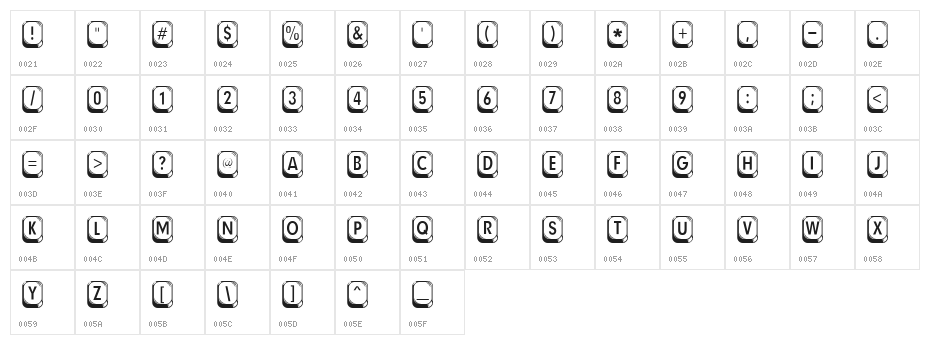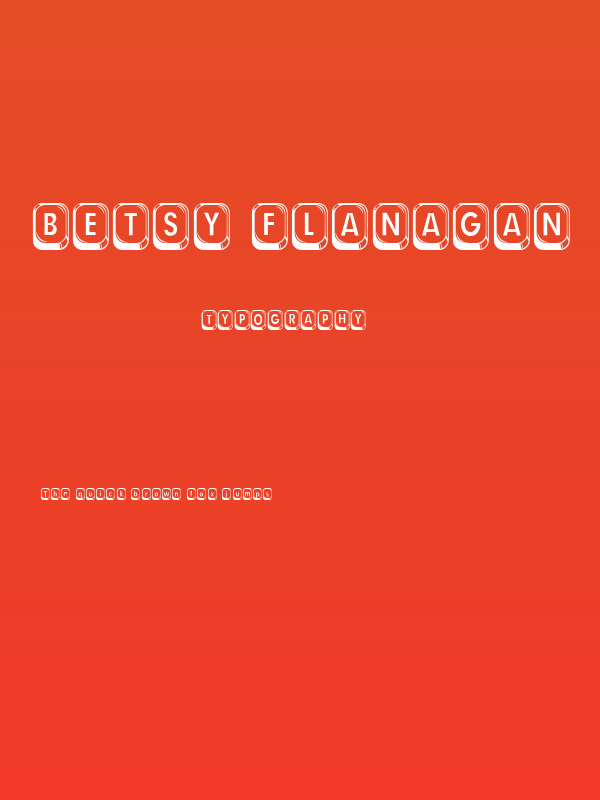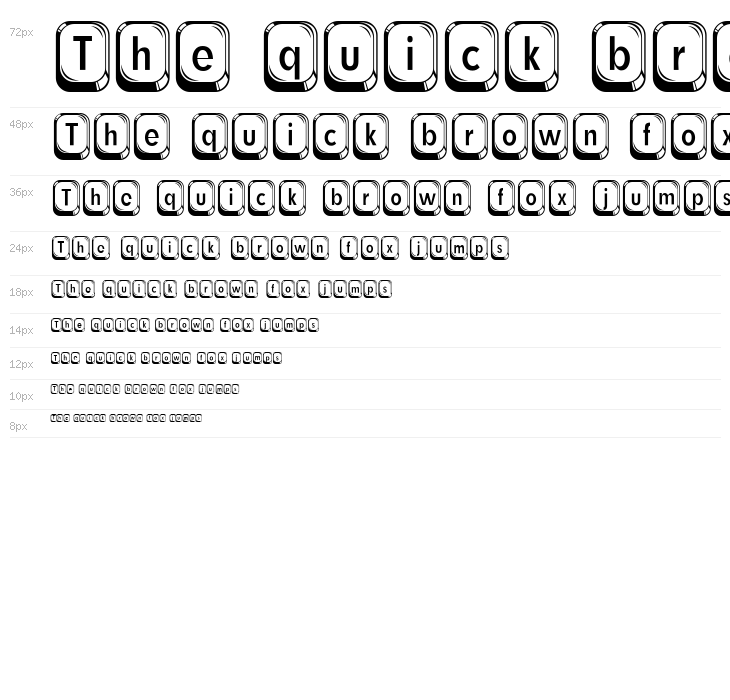
Betsy Flanagan Font
Betsy Flanagan Description
This font features a unique, three-dimensional effect with each character enclosed in a rounded square, giving it a retro, typewriter-like appearance. The bold, sans-serif letters are evenly spaced and have a playful, yet structured look. The characters are consistent in height and width, providing a uniform and balanced aesthetic. The shadow effect adds depth, making the font stand out, while the rounded corners soften the overall look. This style is reminiscent of vintage typewriter keys, offering a nostalgic feel with a modern twist.
| Proposed Projects | Ideal for vintage-themed designs, posters, logos, and creative projects that require a standout, nostalgic font. |